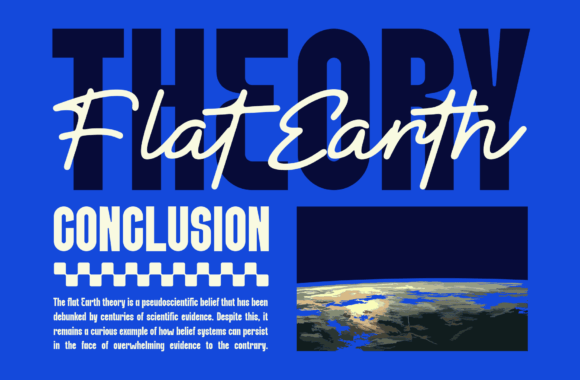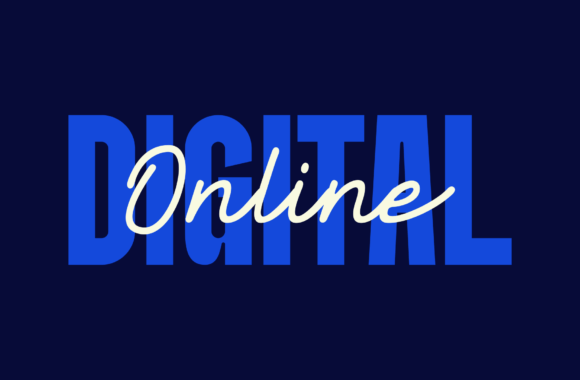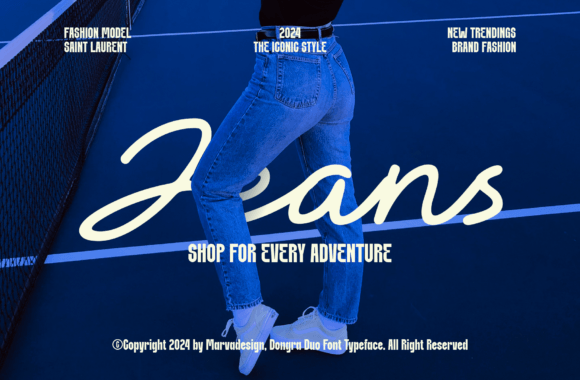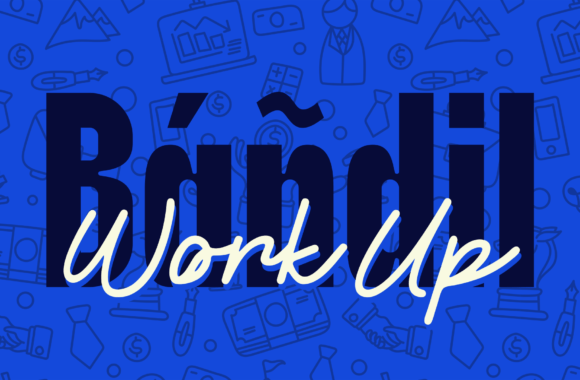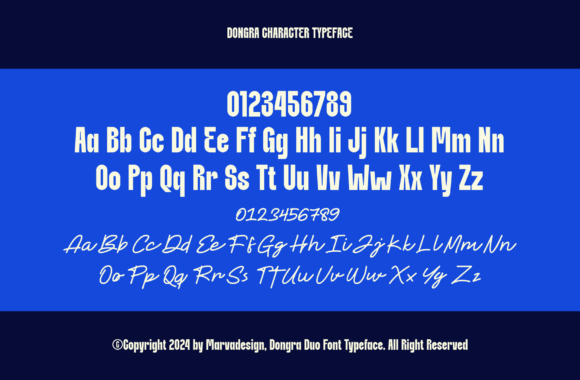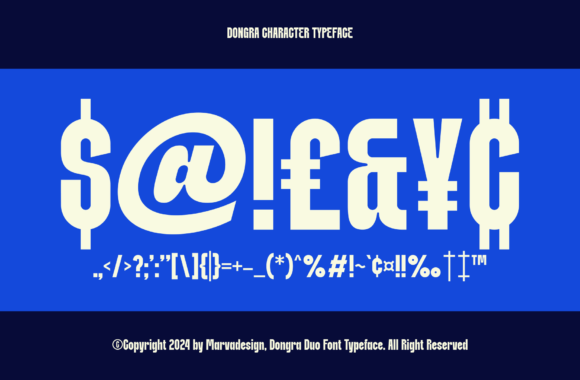
Introduction to Dongra Font
Introducing New Typeface **Dongra** is a versatile and unique typeface that comes in two distinct styles: Condensed and Script.
Each style brings its own flavor and character, catering to various design needs and preferences **Dongra Condensed** * Style: Modern * Characteristics: Sleek and Clean * High Legibility: Despite its condensed nature, the font maintains high legibility, making it suitable for both display and body text.
Key Features of Dongra Font
Why Choose Dongra Font?
Dongra Font offers exceptional quality and versatility, making it a valuable addition to your design toolkit. Whether you’re creating for personal projects or commercial use, Dongra Font delivers professional results.